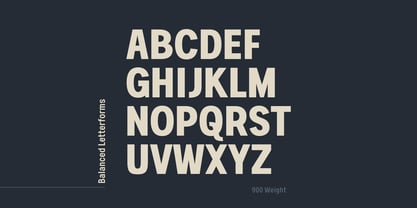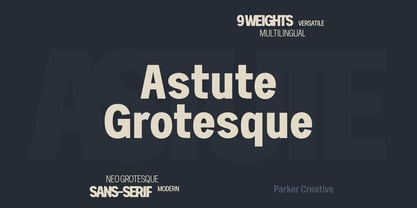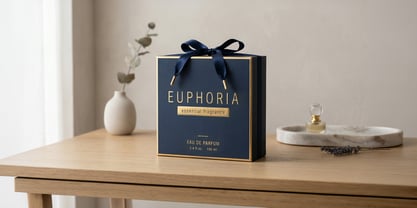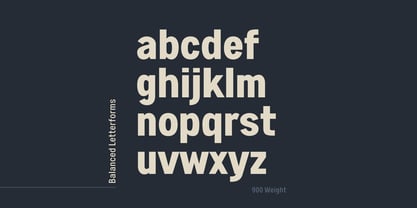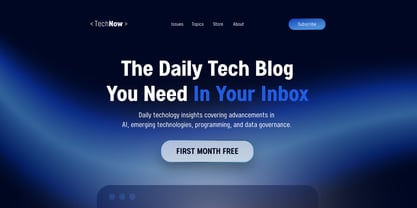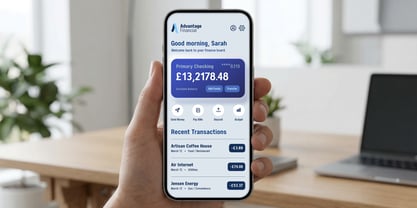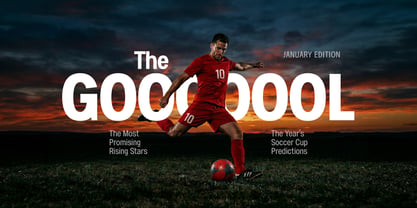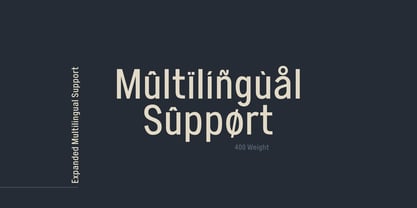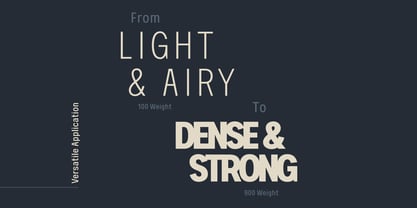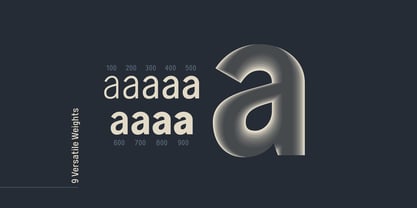
Astute Grotesque
by Parker Creative
The Astute Grotesque Font Family was designed by Alan Parker and published by Parker Creative. Astute Grotesque contains 9 styles and family package options. More about this family
Meet Astute Grotesque, a rigorously crafted neo-grotesque sans-serif typeface. Designed to bring clarity, precision, and a modern element to your creative projects. Inspired by mid-century Swiss typography and meticulously updated for the demands of 2026 digital artwork, Astute Grotesque is a reliable and versatile typeface your design toolkit has been missing. Whether you are designing a high-density data dashboard for a tech startup, building a corporate brand identity, or looking for the perfect invisible sans-serif to pair with an expressive display serif, Astute Grotesque delivers on all fronts. Versatile 9 Weight Family Astute Grotesque includes a wide spectrum of weights ranging from an ultra-delicate 100 Hairline, to a thick 900 Black. Each weight is built with mathematical precision to maintain a consistent style aesthetic throughout the typeface. The thinner weights offer a sophisticated elegance, ideal for luxury fashion branding and high-end editorials while the mid-range weights provide exceptional readability. When you need more presence in the composition, the thicker weights provide the necessary firepower. Engineered for Multiple Languages and Financial Applications Astute Grotesque also comes standard with an expanded character set for international deployment. It includes comprehensive support for Western, Central, and Eastern European languages. It also comes standard with an expanded set of mathematical operators and commercial currency symbols for greater flexibility with finance-based applications. Great Use Cases for Astute Grotesque UI/UX Design: Mobile applications, SaaS platforms, and digital dashboards requiring flexibility at various sizes. Corporate Identity: Logos, pitch decks, business cards, and other design assets big and small for businesses looking to apply a modern look across the brand. Editorial & Publishing: Digital magazines, contemporary book layouts, and art exhibition catalogs.
Designers: Alan Parker
Foundry: Parker Creative
Astute Grotesque